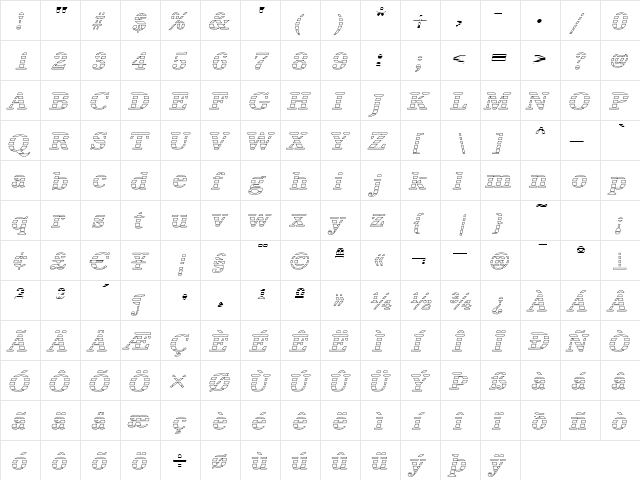
IrisBeckerGradoW BoldItalic
Design Context for IrisBeckerGradoW Typeface
IrisBeckerGradoW takes a measured approach to typography — its balanced proportions and neutral character make it a reliable workhorse for both digital and print work. The dynamic lean of this cut emphasises speed and emphasis in any layout. The heavy weight commands attention and anchors typographic hierarchies.